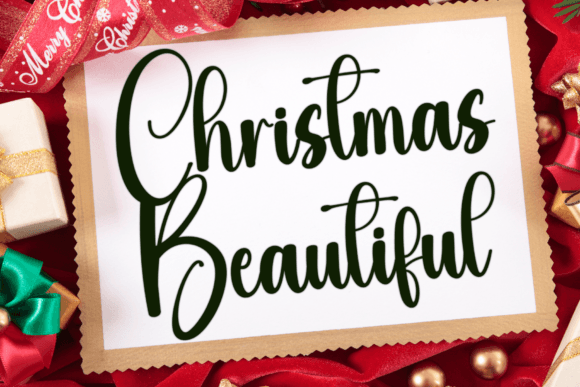
Deck the Halls with Christmas Charm
It’s the most wonderful time of the year – and for designers, that means finding the perfect font to capture the magic of the season. As you sit by the fireplace, sipping hot cocoa and brainstorming ideas, you stumble upon the perfect script font to bring your holiday designs to life.
Meet the Christmas Beautiful Font, a charming script font that exudes a sense of freshness and casual elegance. Its fluid strokes and organic lines evoke a laid-back vibe, making it perfect for various design projects, from branding to invitations and social media graphics. Whether you’re a seasoned pro or a design newbie, this font adds a touch of warmth and personality to any project.
Key Features of Christmas Beautiful Font
- Unique Characteristics: Christmas Beautiful Font features intricate, hand-drawn illustrations and ornaments, adding a touch of festive charm to any design.
- Character Set: The font includes a comprehensive set of characters, including uppercase and lowercase letters, numbers, punctuation, and special characters, as well as a range of festive icons and symbols.
Review of Christmas Beautiful Font
Overall, I think Christmas Beautiful Font is a decent choice for those looking to add some festive flair to their designs. ✨ The font is well-designed and effectively captures the essence of Christmas with its elegant, cursive script.
- The font is highly legible, making it easy to read even at smaller sizes.
- The variety of font styles and sizes available makes it versatile for different design applications.
- The font is well-suited for use in holiday-themed projects, such as Christmas cards, gift tags, and party invitations.
- The font may be too ornate for some design applications, potentially making it difficult to read or distracting from the content.
- The font’s cursive script can be challenging to customize and edit, which may be a limitation for designers who need to make significant changes.
- The font may not be suitable for use in formal or professional designs, as it has a more playful and festive tone.
Overall, I think Christmas Beautiful Font is a solid choice for designers looking to add some holiday cheer to their designs. While it may have some limitations, its well-designed and elegant script make it a great option for those looking to create festive and fun designs.
Here are some tips for getting the most out of “Christmas Beautiful Font”:
- Experiment with different font sizes and colors to create a visually appealing design.
- Use the font in combination with other festive elements, such as holly or snowflakes, to create a cohesive design.
- Consider using the font in a bold or italic style to add emphasis to your design.
Here are some common use cases for “Christmas Beautiful Font”:
- Creating festive holiday cards or invitations.
Alternatives to “Christmas Beautiful Font” for Designers
Great Vibes Font is a modern, elegant, and highly legible font. It’s perfect for use in headings, titles, and body text where a touch of sophistication is desired. Great Vibes Font is a great alternative to Christmas Beautiful Font as it offers a similar sense of luxury and refinement, but with a more subtle and understated feel.
Pacifico Font is a beautiful, cursive script font that evokes a sense of relaxation and calmness. It’s ideal for use in designs where a warm, inviting feel is desired, such as in wedding invitations, greeting cards, or packaging. Compared to Christmas Beautiful Font, Pacifico Font has a more laid-back and casual tone, making it suitable for a wider range of applications.